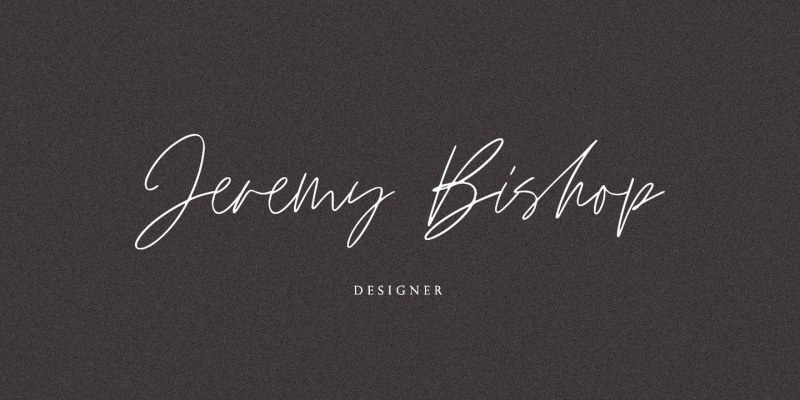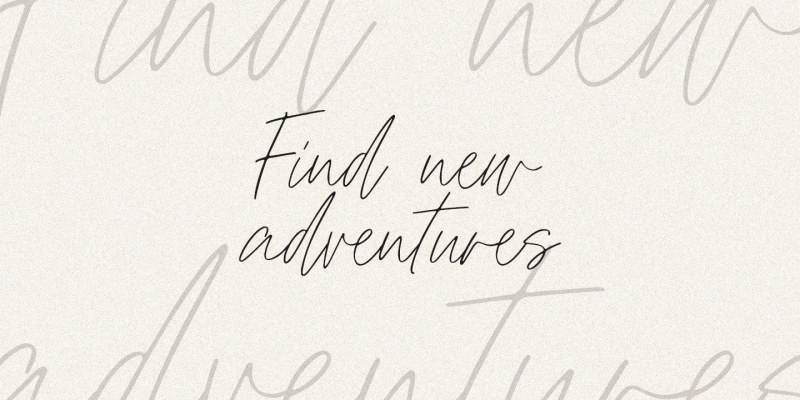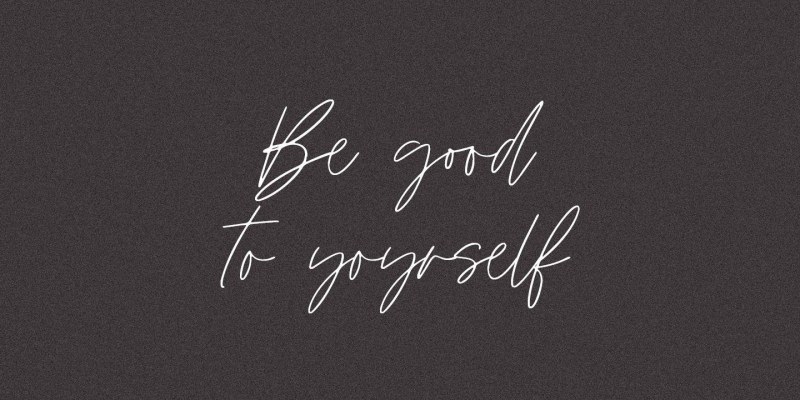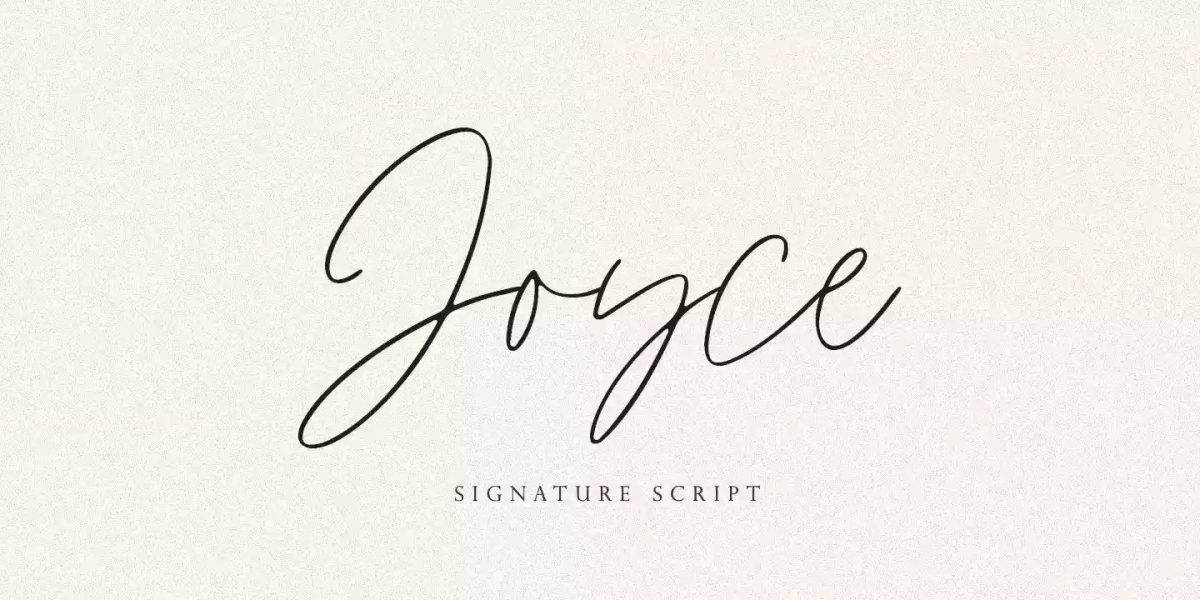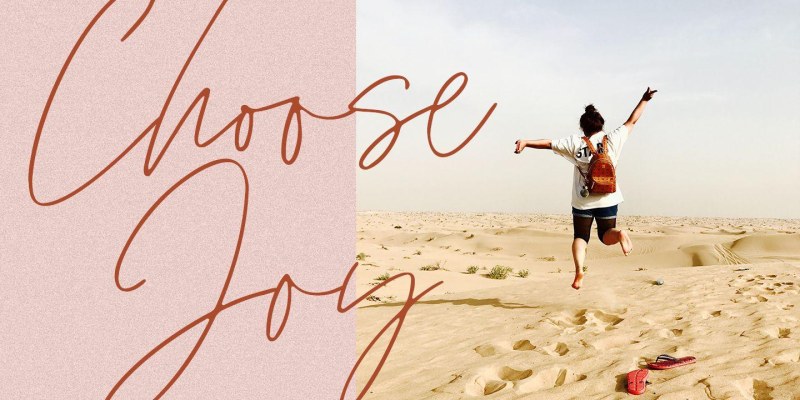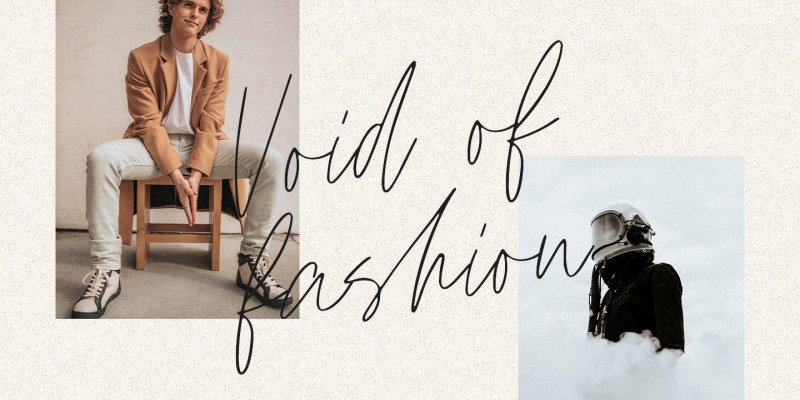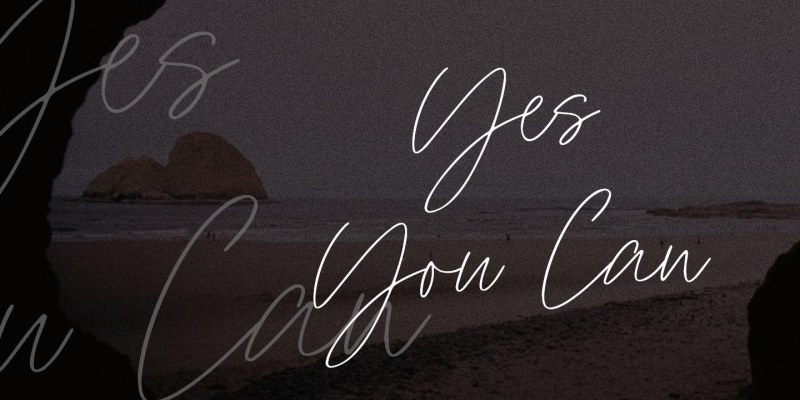
Joyce Font
I keep experimenting with handwritten fonts, shapes and lines. I want the font to set the tone, the atmosphere, and look like an inscription made in a hurry, and is also easy to read. Joyce combines all these qualities. Simple and clear, looks at ease. It is perfect for signatures or design, where you do not need a strict style.
Where Joyce Font works best
Joyce Font brings a personal, handwritten warmth to invitations, menus and place cards.
Craft brands — coffee, cosmetics, bakery — use scripts like Joyce Font for signature-style logos and labels.
Pair Joyce Font with a plain sans for quotes, stories and Pinterest pins that feel handmade.
What is Joyce Font good for?